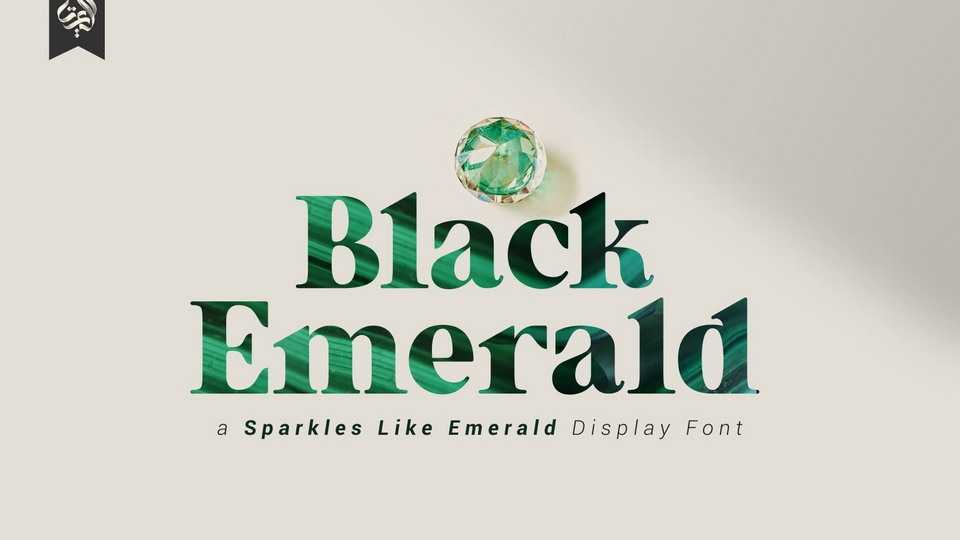
Download Black Emerald font, a sparkles like emerald display typeface. Black Emerald is ideal to create a perfectly fashionable, beautiful, fancy, and elegant design.
Designer: Aluyeah Studio